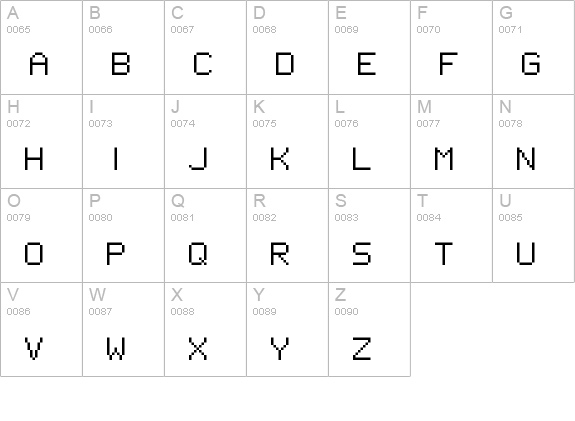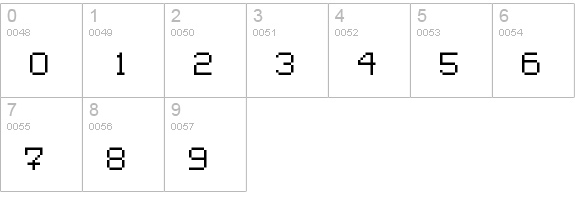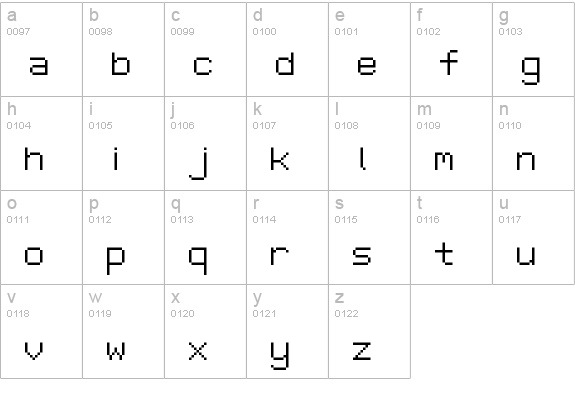
Agamefont is a sensational font that effortlessly combines elegance and versatility, making it the perfect choice for any design project. This captivating typeface features a unique blend of sleek lines and bold strokes, resulting in a truly eye-catching display of characters. With its modern and contemporary design, Agamefont adds a touch of sophistication to any text or headline. Whether you're designing a logo, creating a website, or working on a branding project, this font will undoubtedly elevate your work to new heights. One of the most remarkable aspects of Agamefont is that it is available for free. That's right, this stunning font can be downloaded at absolutely no cost from FontsMarket.com. This makes it an incredibly accessible choice for designers of all levels, from beginners to seasoned professionals. Not only is Agamefont free, but it also comes with an extensive collection of characters and glyphs. This allows you to experiment and create truly unique and personalized designs that stand out from the crowd. Every letter has been meticulously crafted, ensuring that each stroke and curve is perfectly balanced and visually pleasing. In addition to its aesthetic appeal, Agamefont is also incredibly easy to work with. Its clean and well-defined shapes make it highly legible, even at smaller sizes. This means that your message will always be clear and easily understood, regardless of the medium or platform you choose to showcase it on. Agamefont is a font that truly embodies the spirit of creativity and innovation. Its free availability on FontsMarket.com opens up a world of possibilities for designers looking to add a touch of elegance and style to their projects. So why wait? Download Agamefont today and experience the power of this exceptional font for yourself.